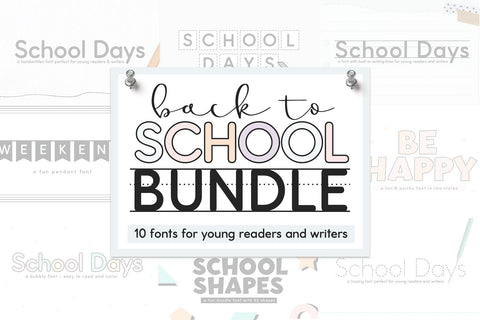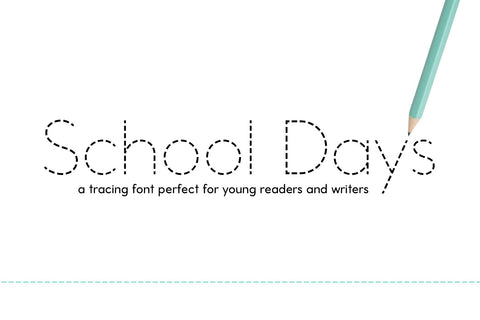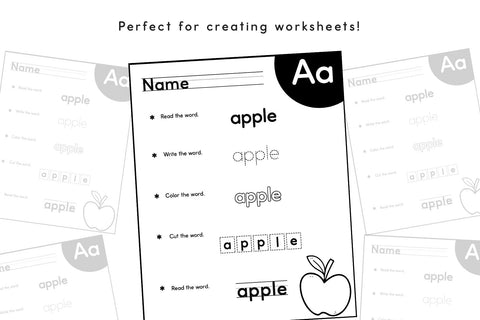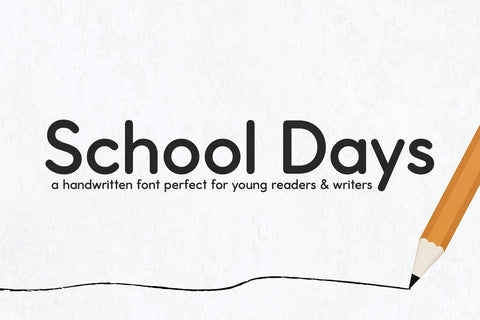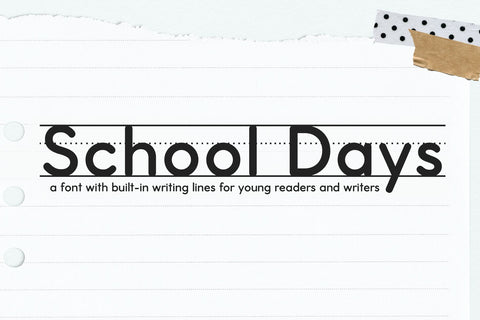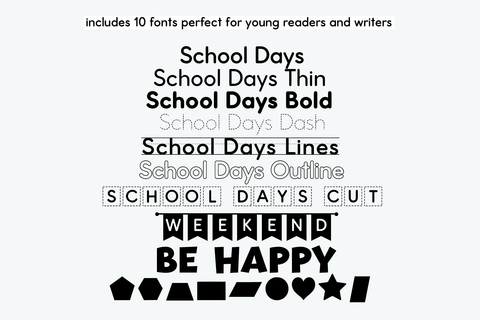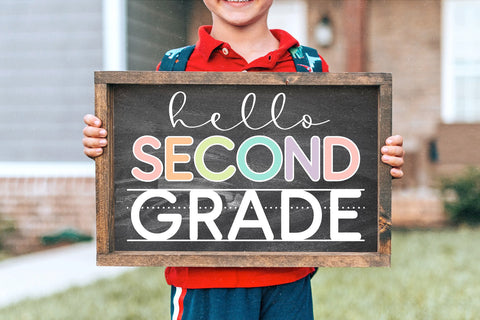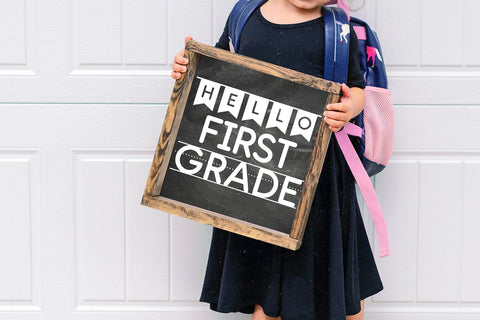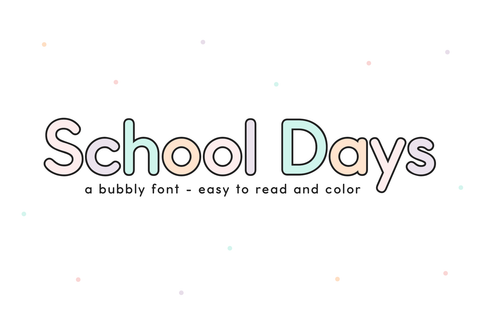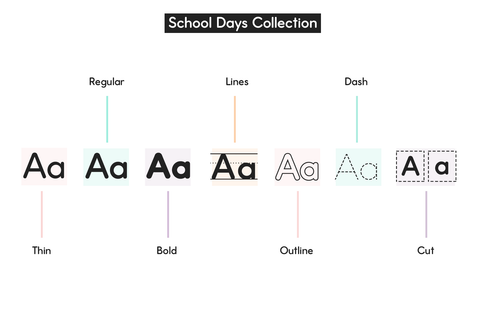
School Days Font Bundle - Back To School Fonts
It's that time again - back to school season!
This bundle is perfect for all things back to school!
These fonts were made to be easy to read for young readers and writers. This bundle is perfect for creating worksheets, practice pages, school designs, cricut projects, handwriting practice, reading practice, letter formation, personalized items for students and more!
This bundle includes a collection of one specific font in various styles. **School Days** includes a ton of variations that will make your designs and worksheets seamless and cohesive!
- School Days
- School Days Thin
- School Days Bold
- School Days Dash
- School Days Lines
- School Days Outline
- School Days Cut
Also Includes
- Weekend (Pendant Font)
- School Shapes (Doodle Font)
- Be Happy (Bulletin Board Font)